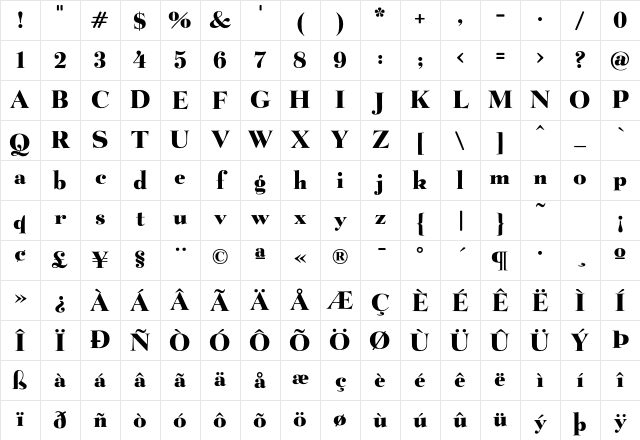
Complete BeLucian FB Ultra Regular glyph index. Displaying only characters natively supported by BeLucian FB Ultra Regular font.
BeLucian FB Ultra is a composed and adaptable typeface that performs quietly and consistently across a wide range of design contexts.